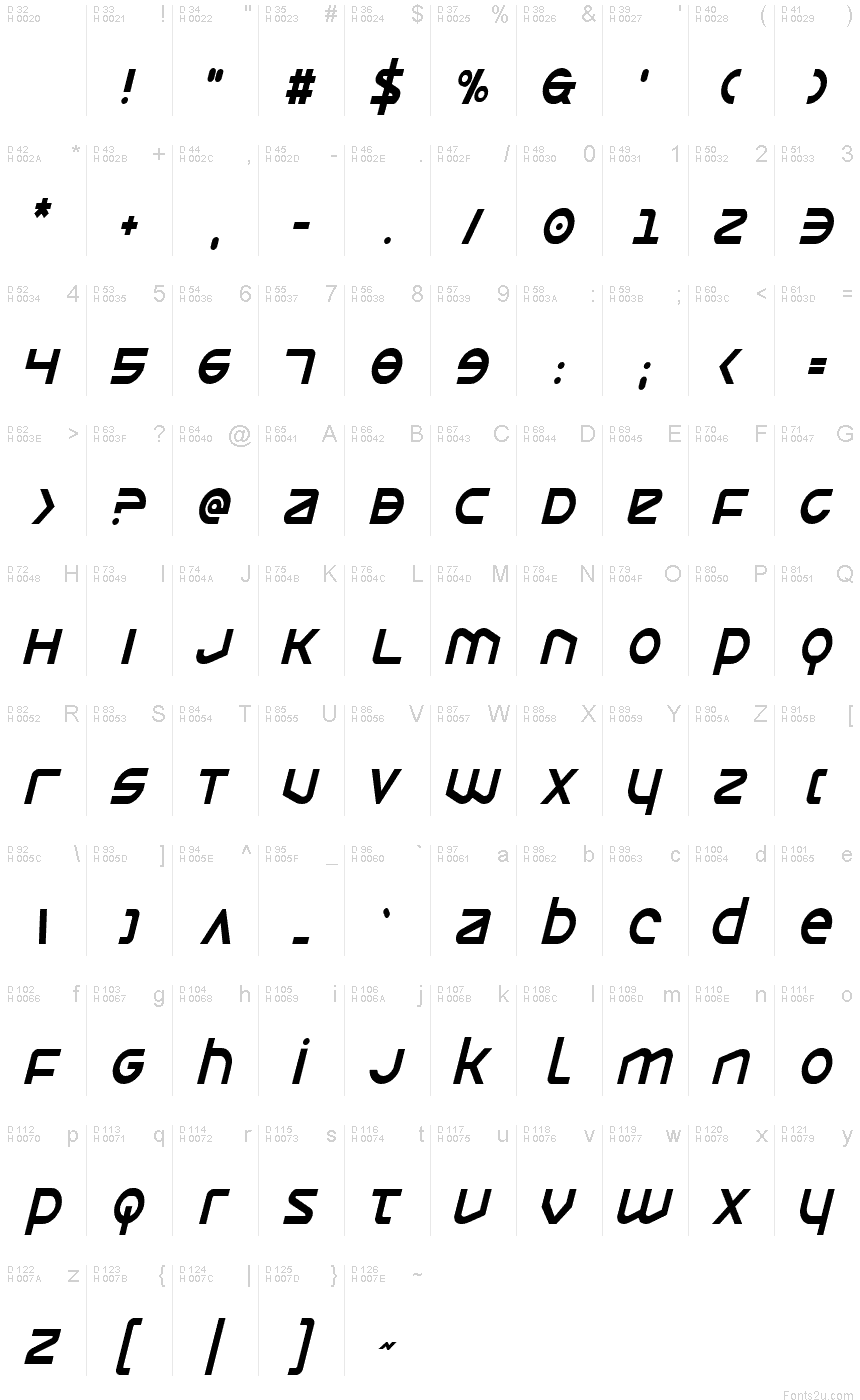
Opilio Condensed Italic by Daniel Zadorozny of Iconian Fonts is a free futuristic sans serif with a sharply slanted, compact build. Broad curves meet clipped corners and abrupt diagonal cuts, giving the letters a fast, engineered profile.
Its space-age styling suits science fiction posters, game graphics, and electronic music packaging. The tight proportions and aggressive forward lean suggest speed, machinery, and streamlined vehicles rather than neutral corporate typography. It is particularly suited to designers and entertainment brands seeking a sleek technological identity with an unconventional edge.